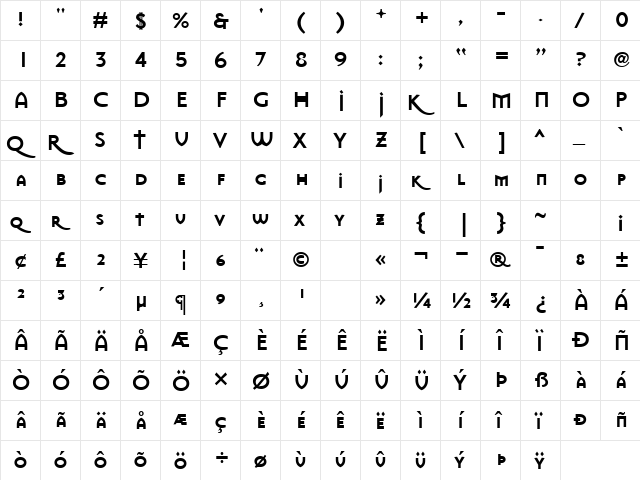
MasonSansBold Bold
Design Context for MasonSansBold Typeface
MasonSansBold offers clean, dependable letterforms without strong stylistic allegiance, making it a practical choice for designers who need flexibility. Its bold stroke weight gives it real presence on the page.